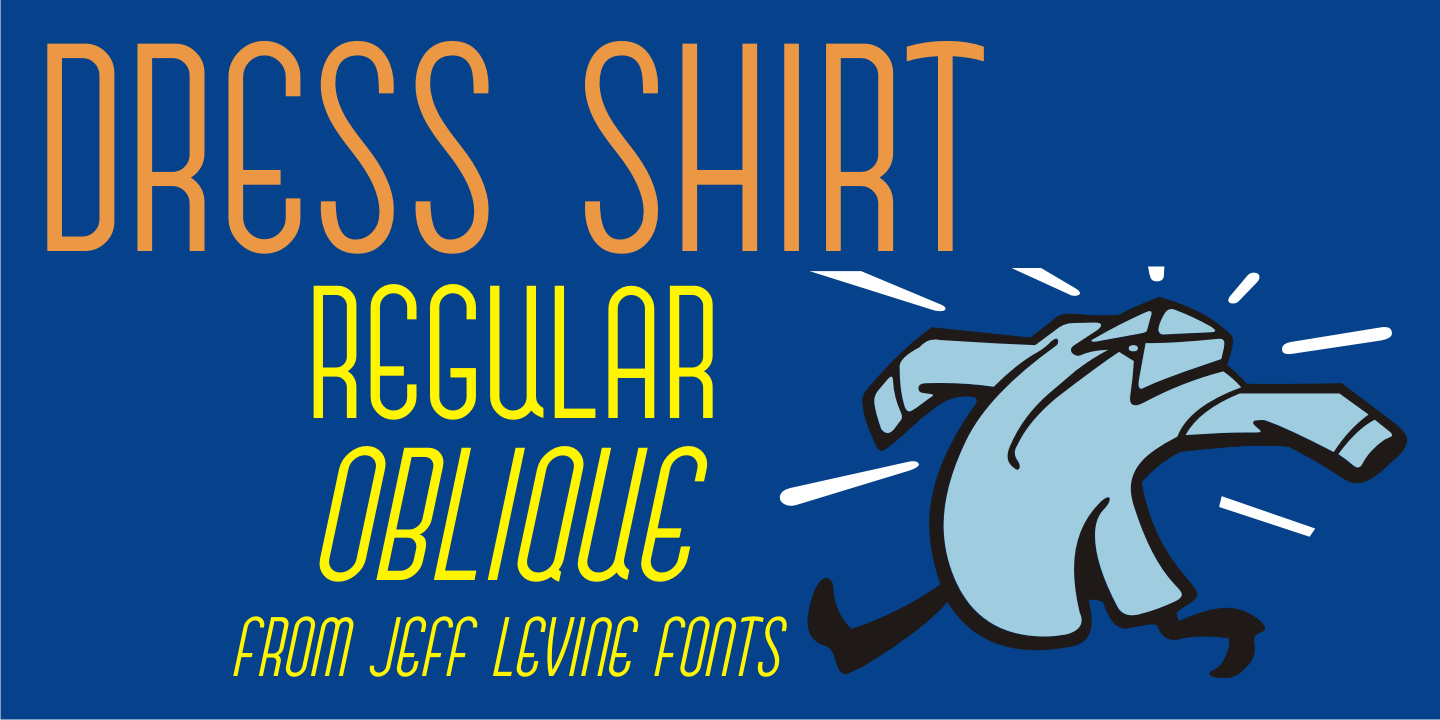
Dress Shirt
A sample of monogram lettering entitled 'Style 204 – Modern Block” (probably circa 1940s) yielded the thin Art Deco alphabet model for Dress Shirt JNL, which is available in both regular and oblique versions.
Dress Shirt JNL Regular by Jeff Levine Fonts